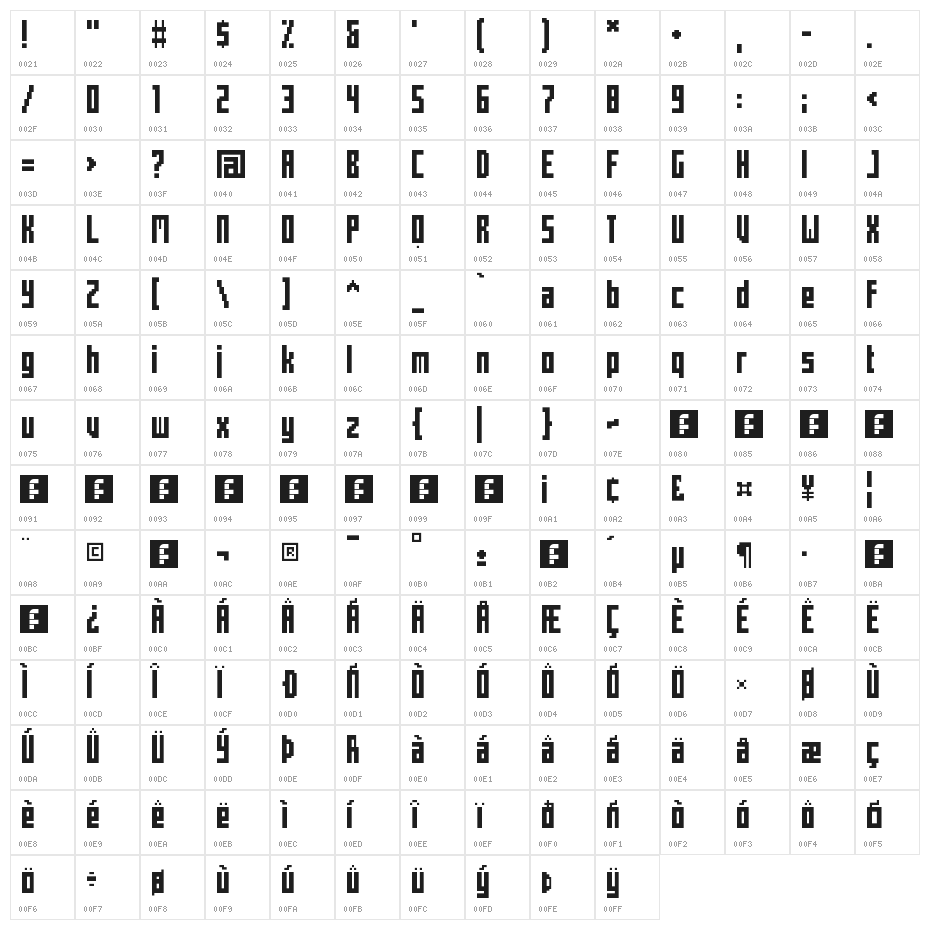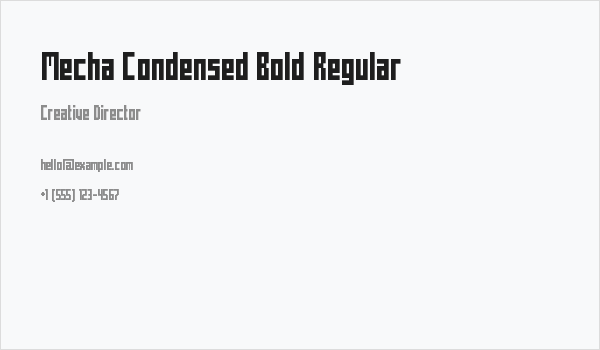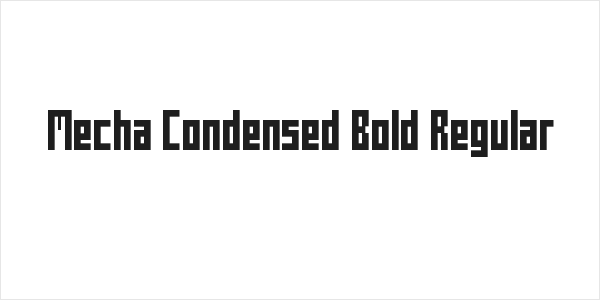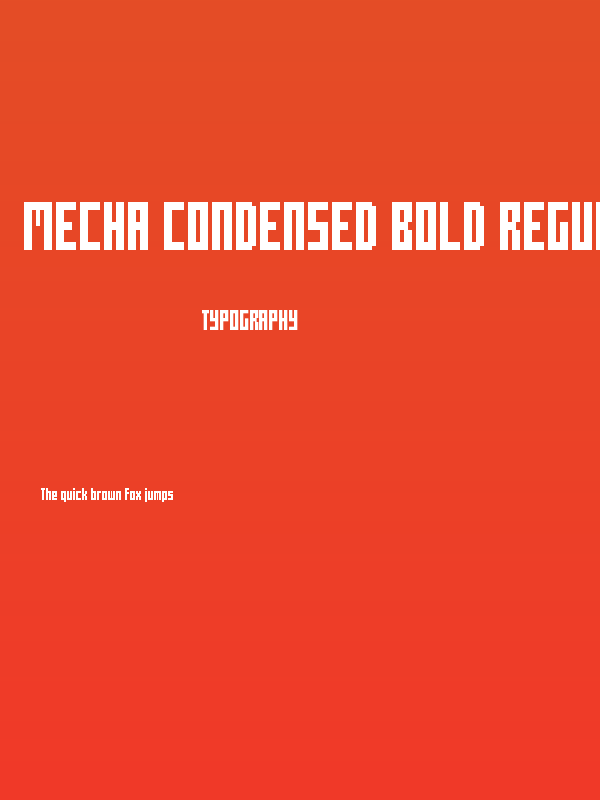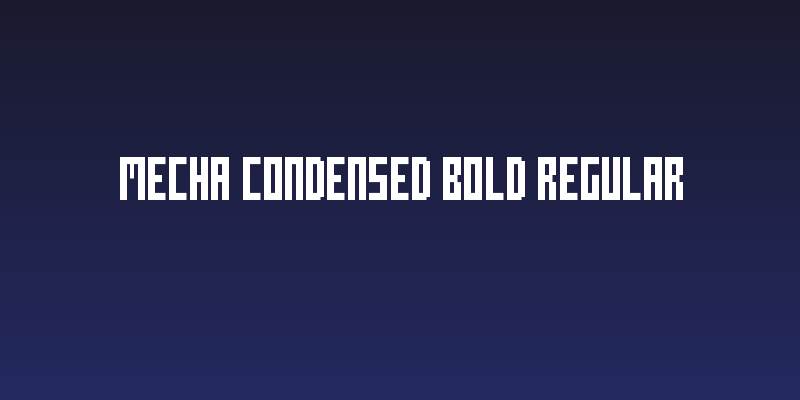
Mecha Condensed Bold Regular Font
Mecha Condensed Bold Regular Description
This font features a bold and condensed design with a distinctly modern and futuristic aesthetic. The characters are blocky and geometric, with sharp edges and a uniform stroke width that gives it a strong, impactful presence. The uppercase and lowercase letters maintain a consistent height, contributing to its compact appearance. The numerals and special characters are designed to match the overall style, ensuring a cohesive look across all text elements. Its boldness and condensed nature make it ideal for attention-grabbing headlines or titles where space is limited.
| Proposed Projects | Ideal for sci-fi themed designs, video game interfaces, tech branding, and posters. |